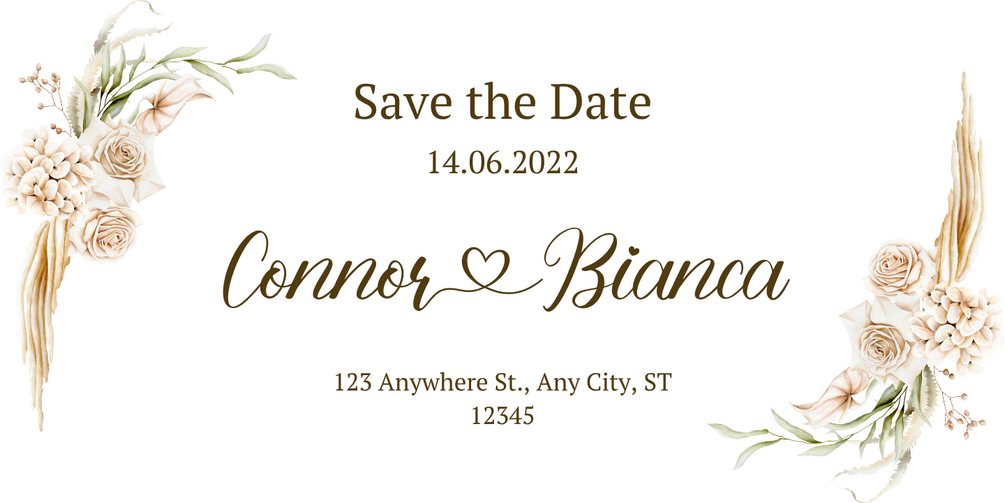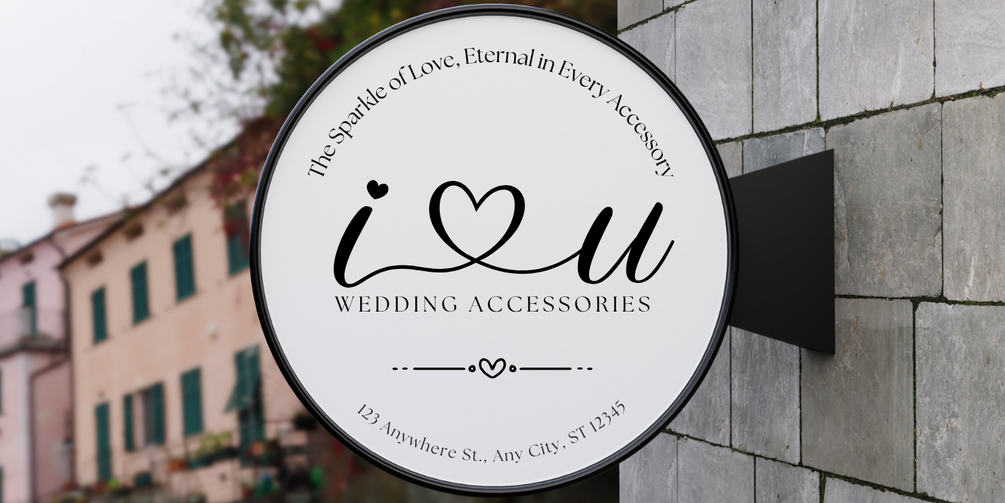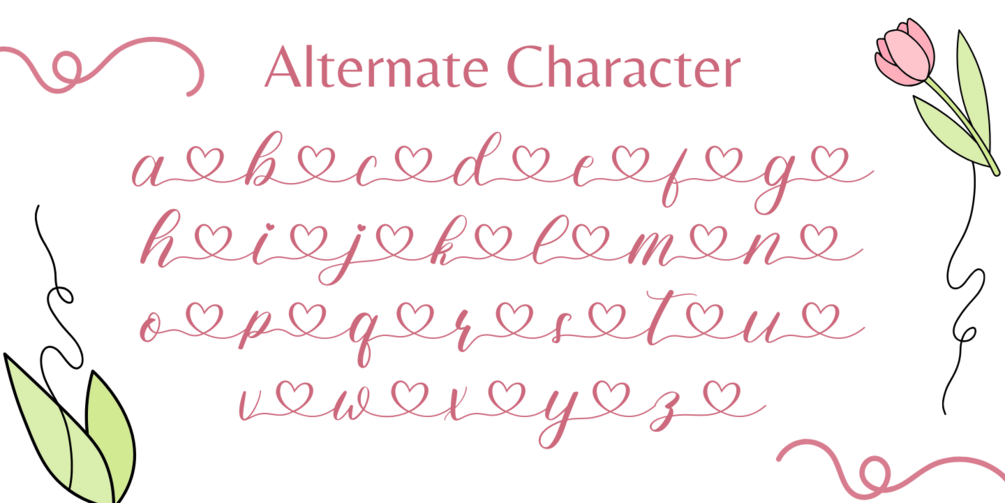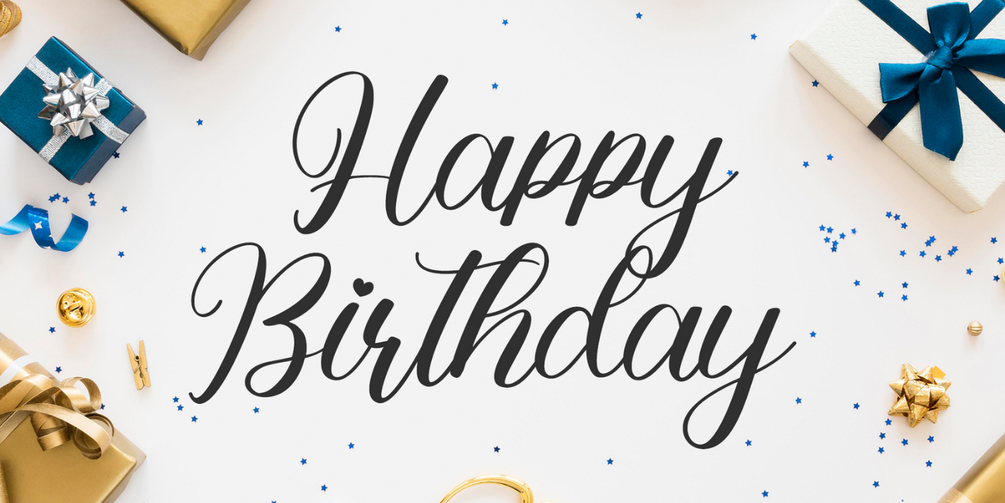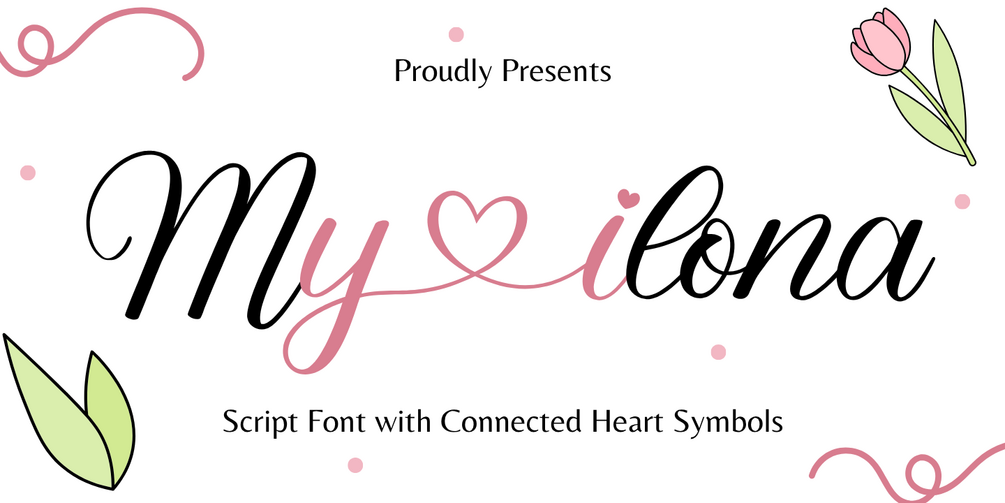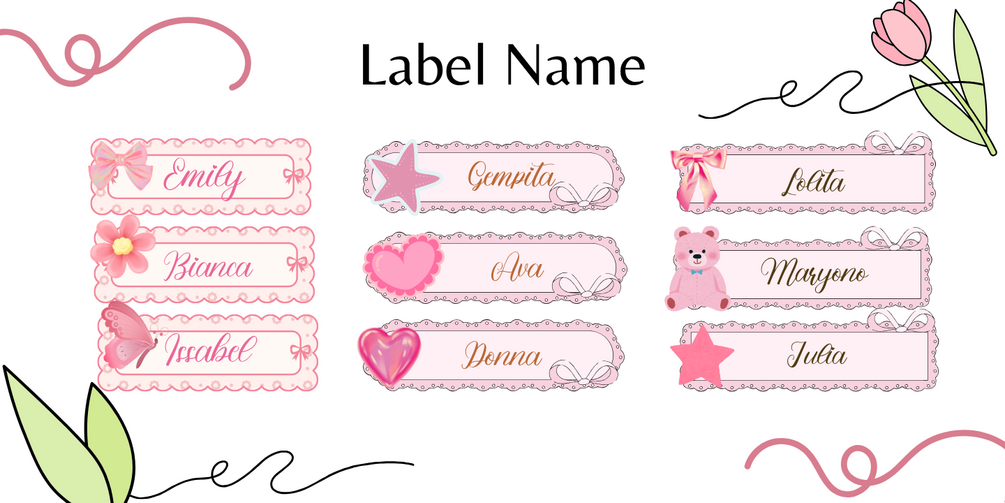
My Ilona
My Ilona - Romantic Calligraphy Font
Let every word dance with elegance. My Ilona is a romantic and luxurious calligraphy font, crafted to bring an authentic and lively touch of handwriting to your digital projects. With its dynamic baseline and gentle strokes, My Ilona is perfect for anyone looking to add an element of luxury and intimacy to their designs.
This font is the perfect solution for:
• Luxury Branding & Logos
• Invitation Design (Weddings, Parties, Formal Events)
• Product Packaging Design
• Inspirational Quotes & Social Media Content
• Magazine or Blog Article Titles
• Photography Watermarks
What makes My Ilona special?
• Living Characters: A unique letter design with a dynamic baseline, creating a truly natural handwriting impression.
• Rich Glyph Collection: Equipped with uppercase, lowercase, numbers, and standard punctuation.
• Abundant Ligatures & Alternates: Dozens of ligatures and alternate characters to ensure there are no awkward letter repetitions and that your typography flows perfectly.